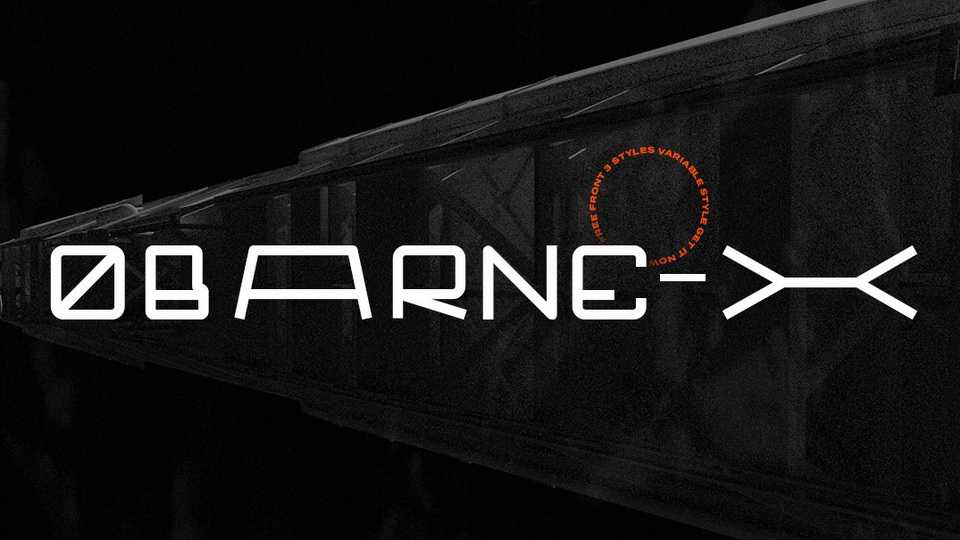
Download Obarne-X typeface, a variable font family in three weights. Some of the letters have alternative variable glyphs. For some letters created two wider versions of the initial letter to mix up the font.
Designer: Luis H. J. Rapp